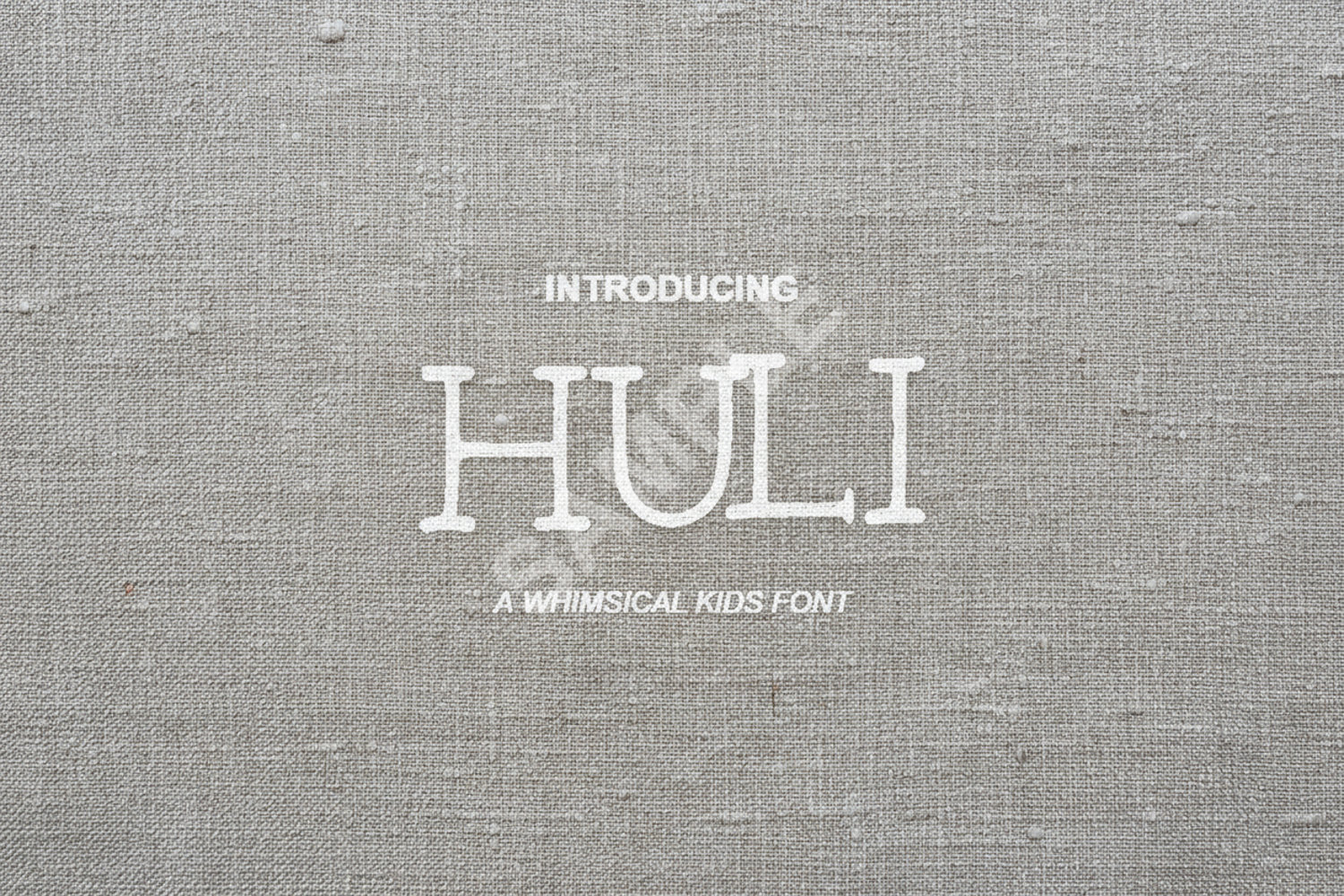
Huli - Sophisticated Modern Sans Serif Typeface
Huli
Huli is a premium sans serif typeface meticulously crafted to bring a touch of modern sophistication to your creative projects. With its clean lines and perfectly balanced proportions, Huli offers a timeless aesthetic that adapts effortlessly to both minimalist and high-impact designs. Whether you are crafting a high-end brand identity or a sleek digital interface, Huli provides the professional edge your work deserves.
- Complete character set including uppercase, lowercase, numerals, and essential punctuation
- Branding and Identity: Create memorable logos and cohesive corporate stationery.
- Editorial Design: Perfect for clean magazine layouts, headers, and book covers.
- Wedding Stationery: Add a contemporary twist to invitations and save-the-dates.
- Social Media: Design eye-catching graphics for Instagram, Pinterest, and TikTok.
- Web Design: Ensure high readability and style across all digital platforms.